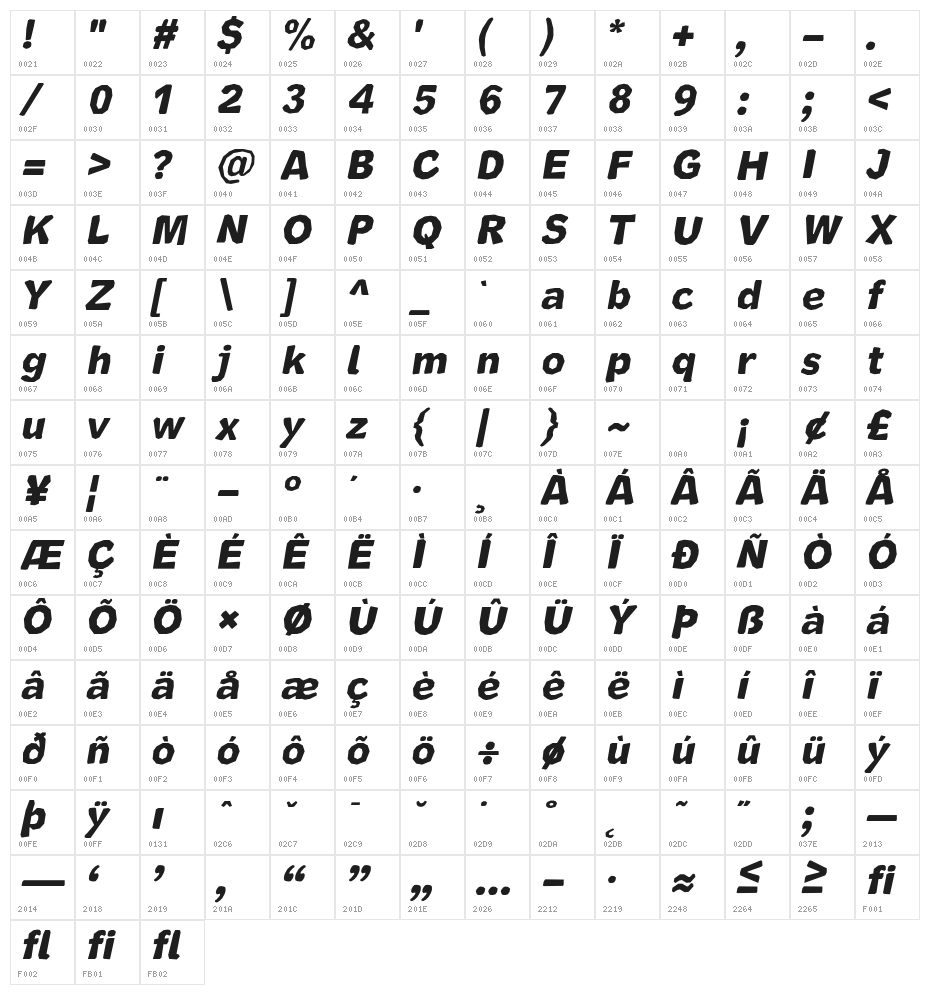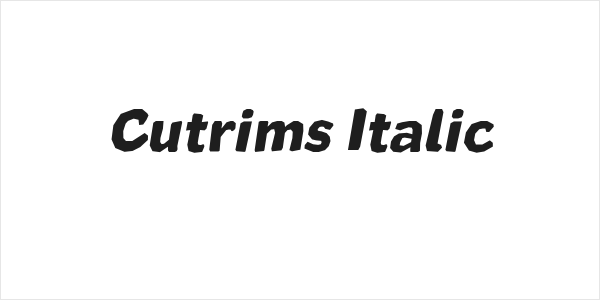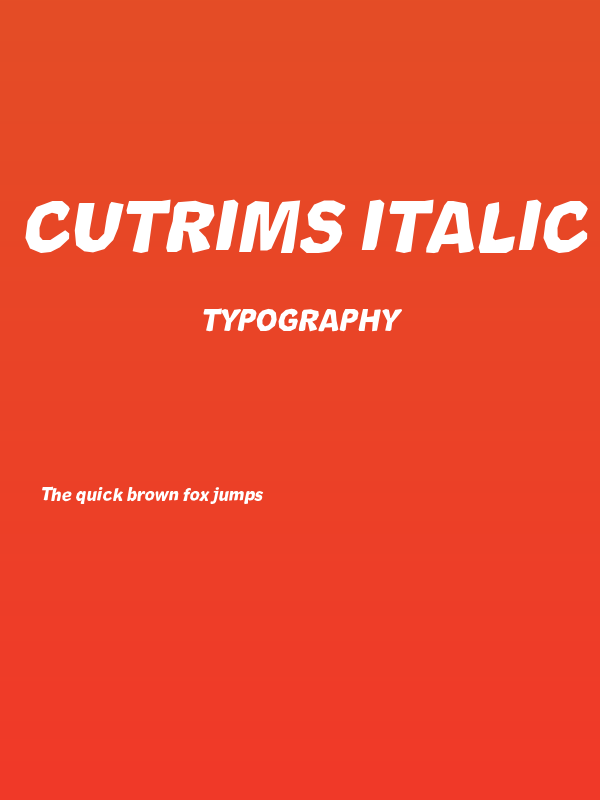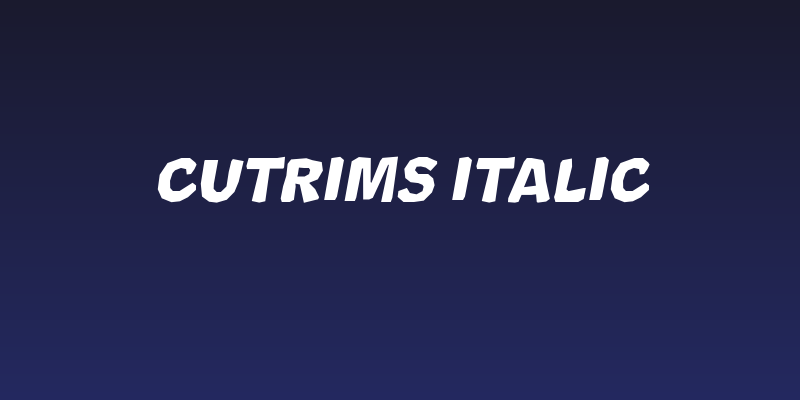
Cutrims Italic Font
Cutrims Italic Description
This font features a bold and dynamic italic style, characterized by its strong, slanted letterforms that convey a sense of movement and energy. The strokes are thick and consistent, providing a robust appearance suitable for impactful designs. The uppercase and lowercase letters maintain a cohesive look, with slightly rounded edges that soften the overall appearance. Numbers and special characters are designed to match the boldness and slant of the alphabet, ensuring uniformity across all text elements. This font is ideal for projects that require a bold statement or a modern, energetic feel.